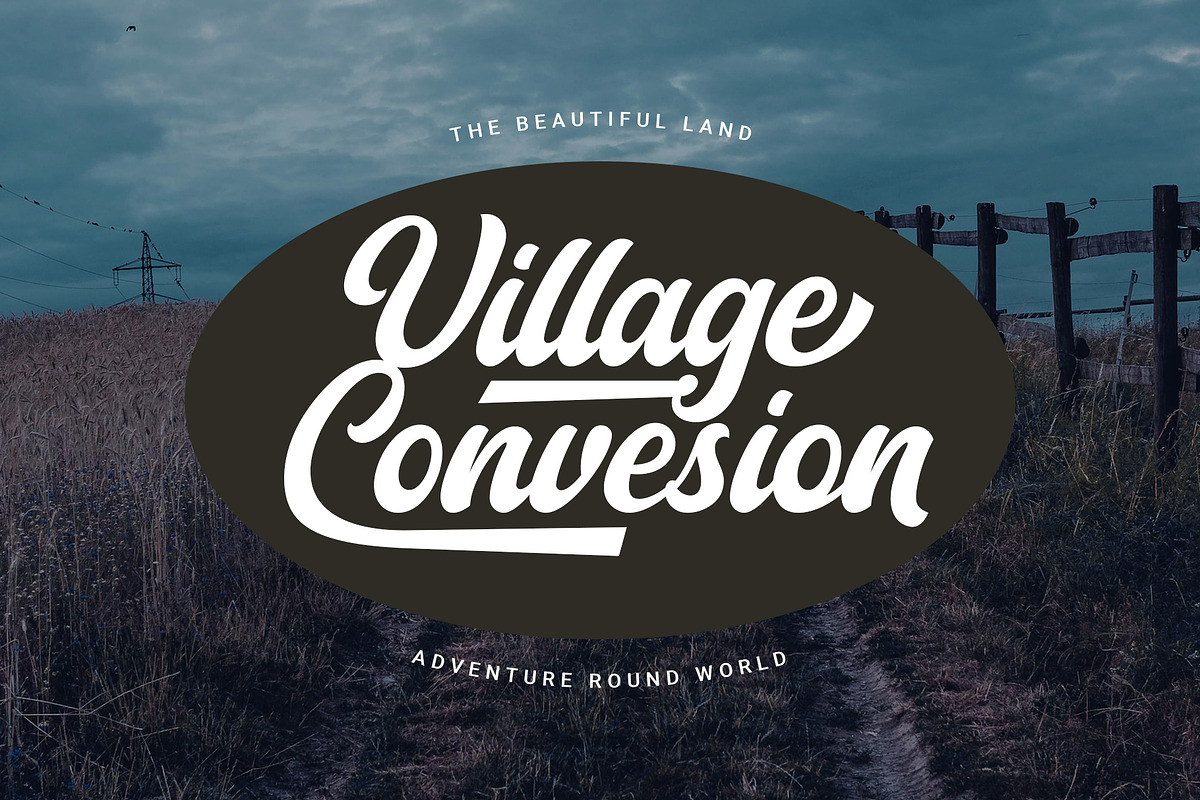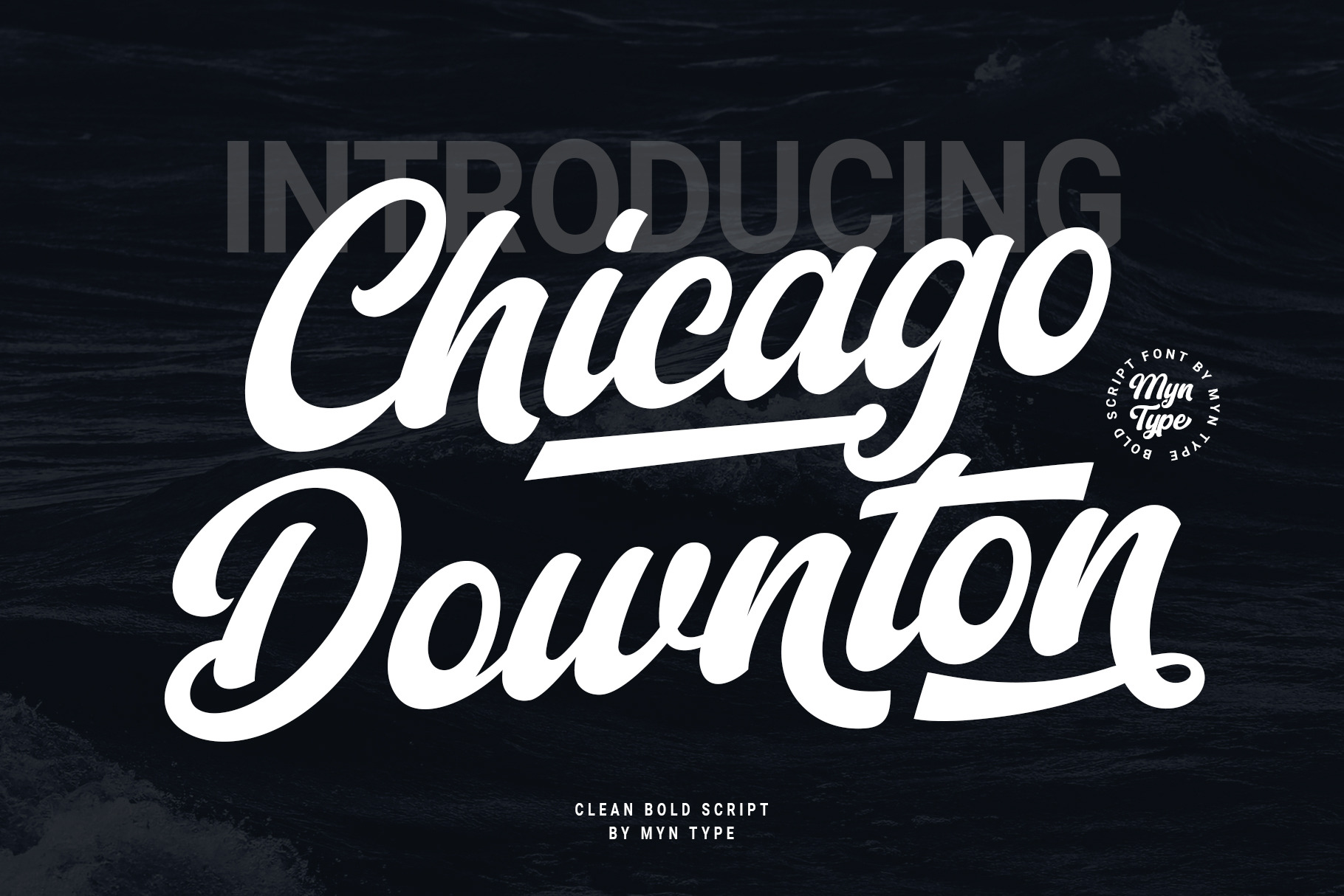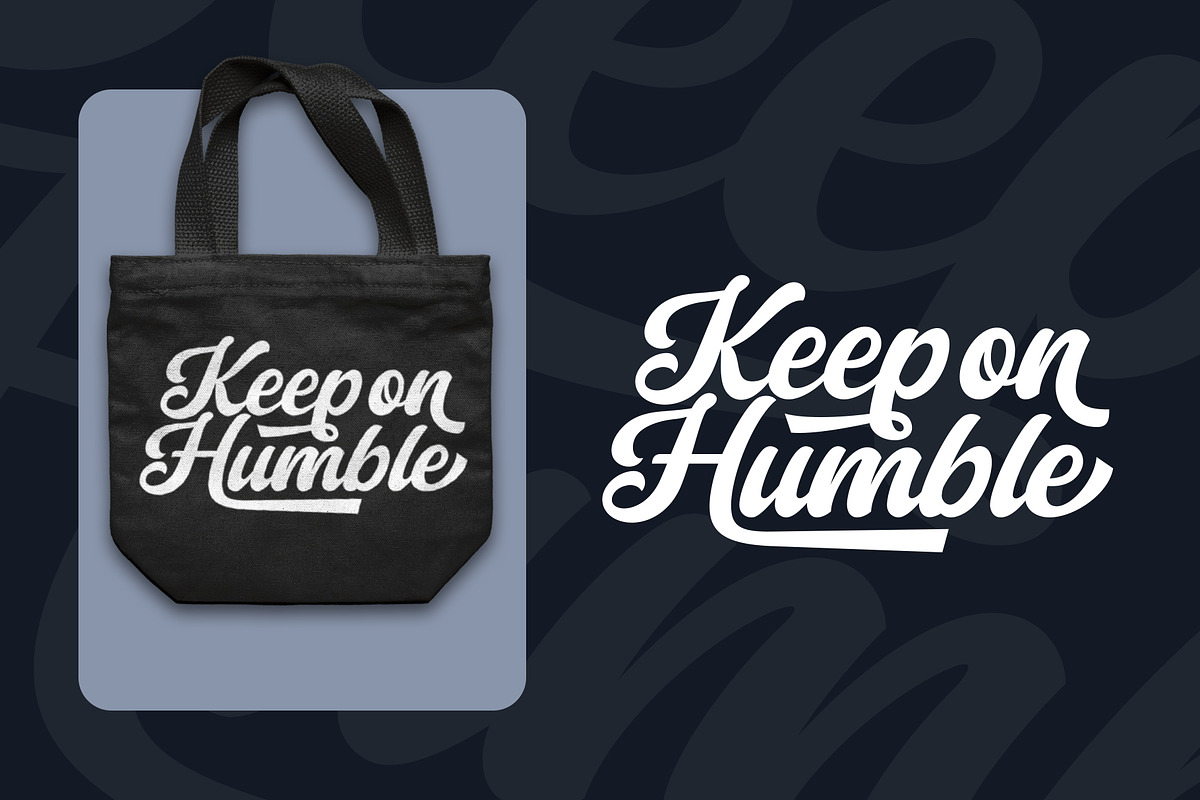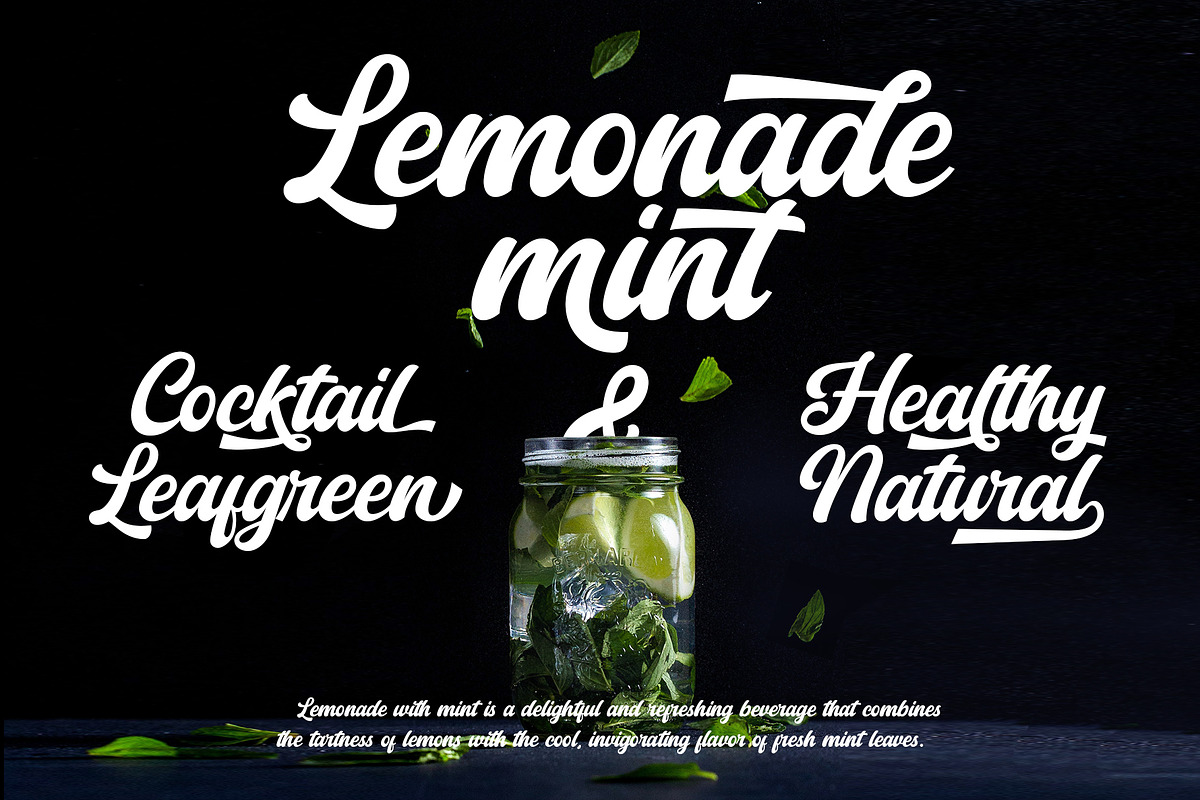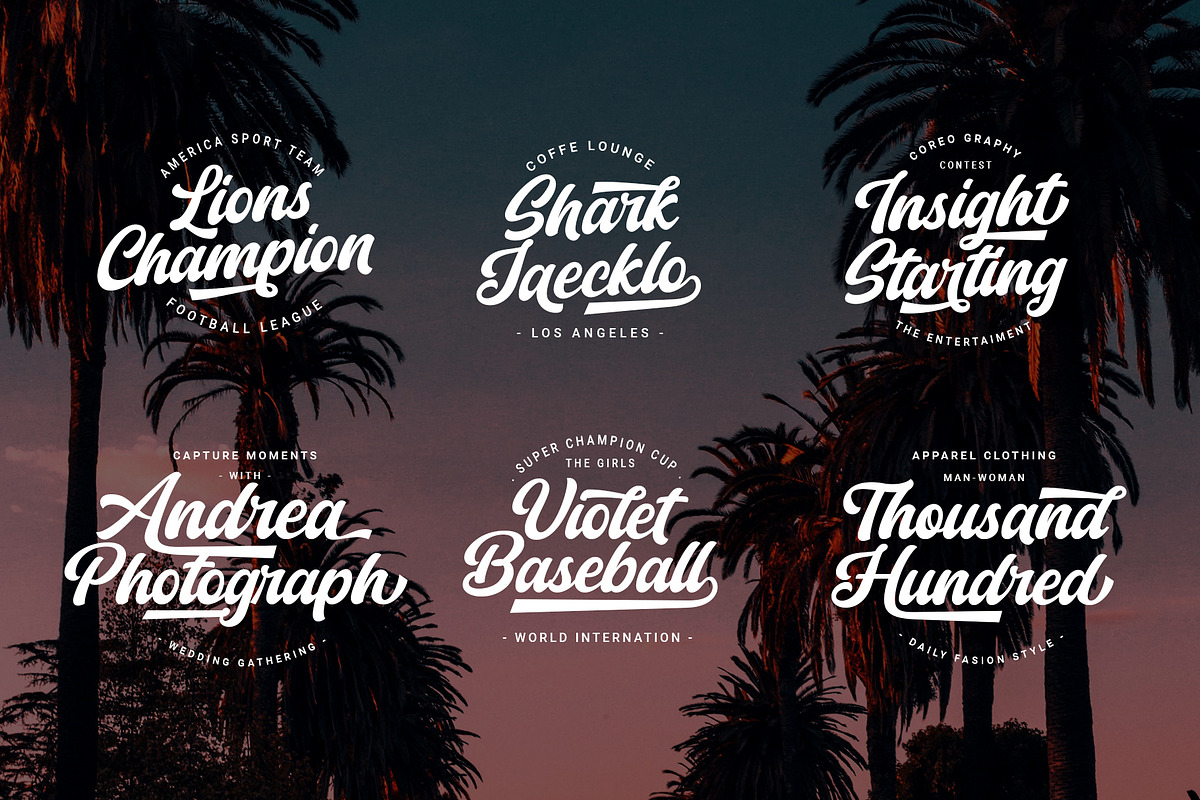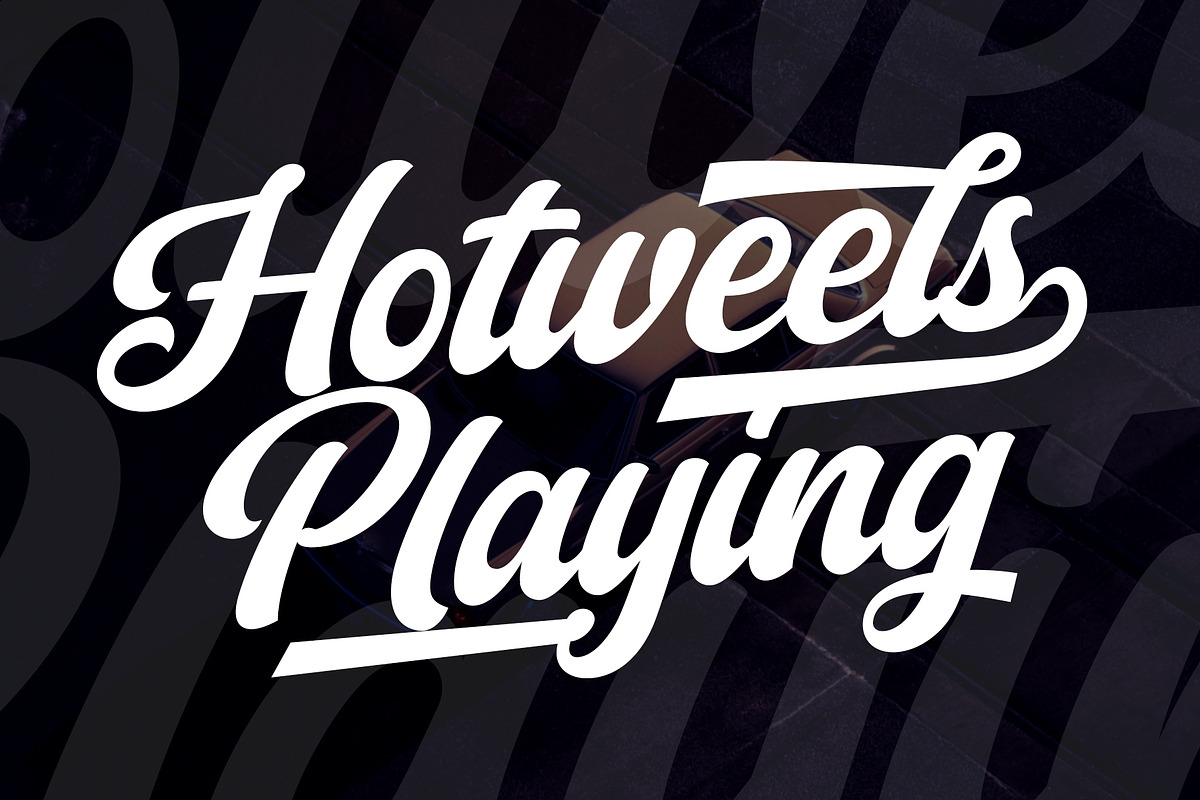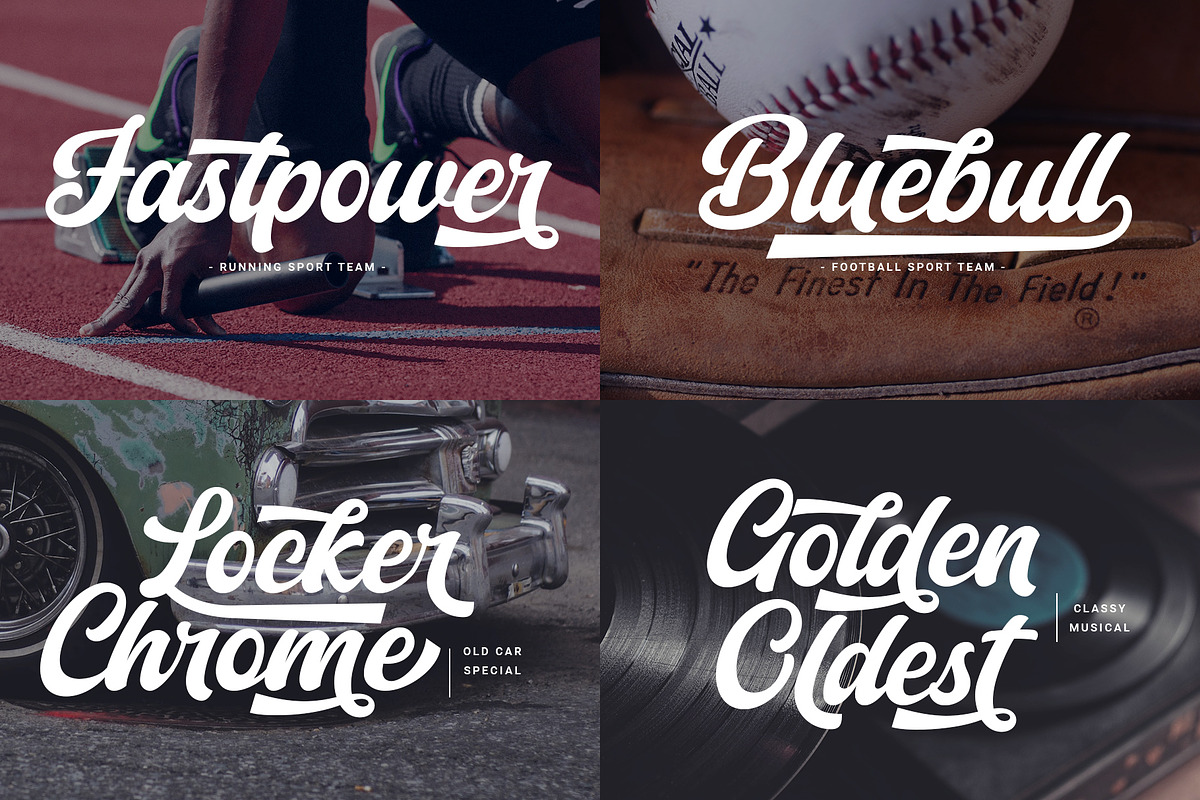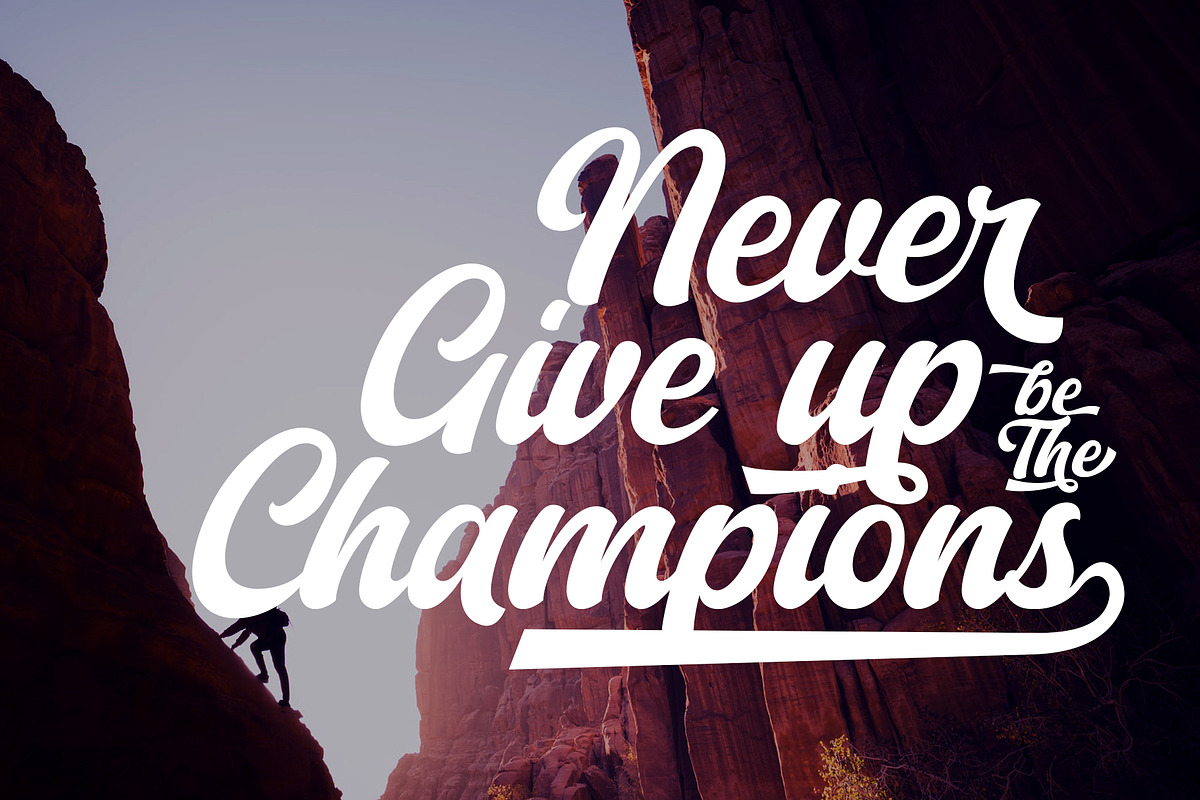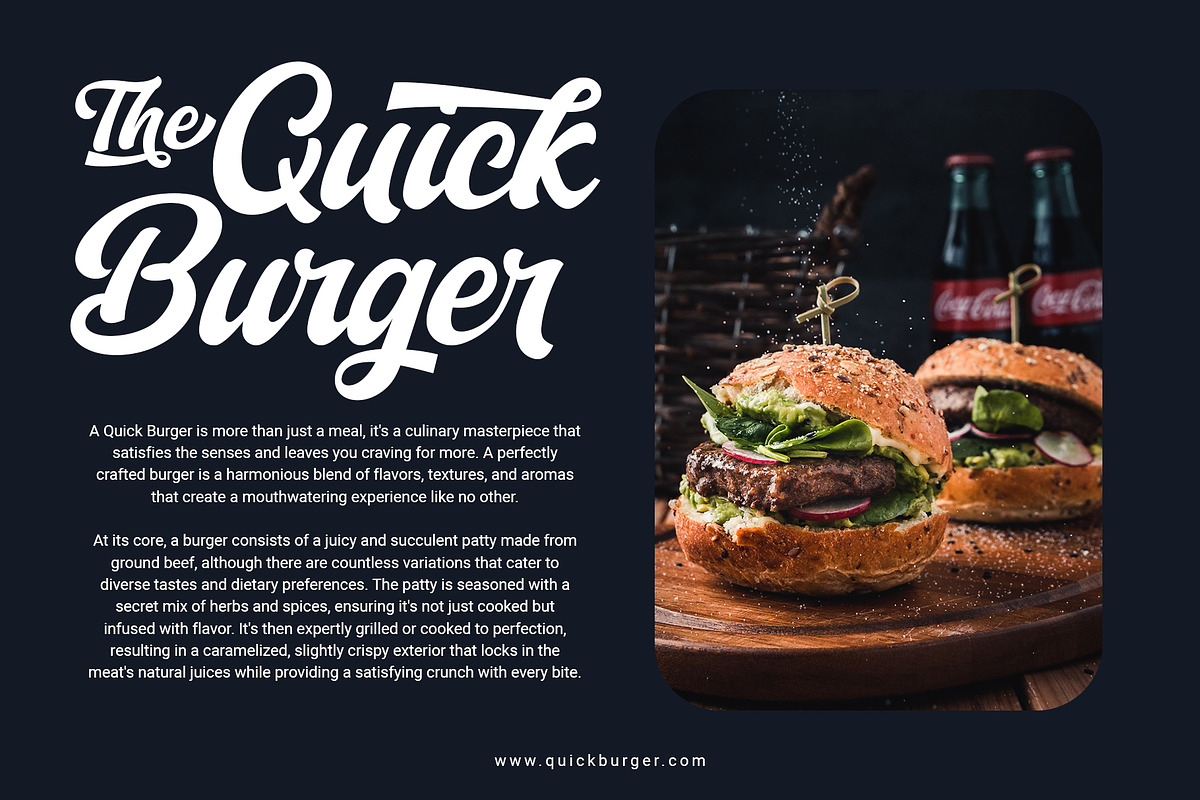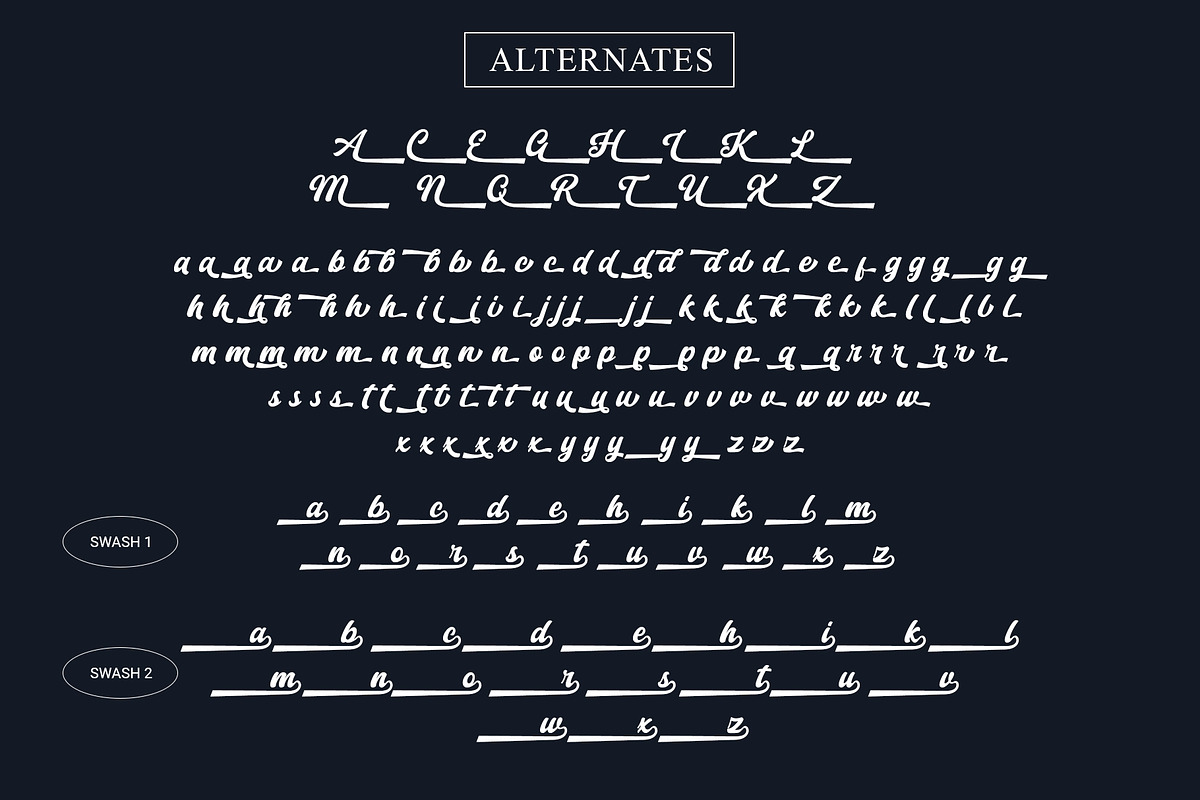
Chicago Downton - Bold Script Font
Chicago Downton is bold script. Inspiration from the baseball font with a touch of vintage script font was created. This font is a delightful fusion of two rich traditions - the sport that captured the hearts of millions and the script that exudes classic charm.